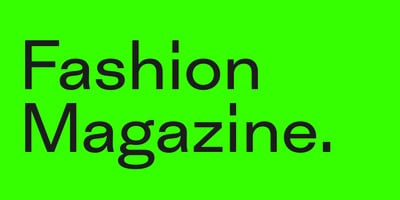
Rui Abreu
Rui Abreu first taught himself the craft of type design by making experimental geometric fonts. He then traveled a steep learning curve by continually challenging himself. Originally from Porto, Portugal, Rui draws inspiration from his early surroundings. “Porto is a very charismatic city,” he said in his Creative Character interview. “The city’s old trading activity is still visible on many storefronts, so lettering and type are part of the urban landscape. That probably did have some influence on my typographic disposition.”
After publishing his early typefaces through a foundry called Fountain, he launched his own one-man label, operating out of Lisbon, Portugal: another city boasting a rich history of ornamentation and lettering. “I certainly think I’ve been influenced by the city and its character,” he said. “Many of its aspects are difficult to translate in typographic terms, but the city’s general aesthetics, specifically the late gothic and baroque ornaments, and the definite presence of literature and books that one feels in Lisbon, all have worked as stimuli for me.”
It didn’t take long before the self-taught designer was creating highly original, beautifully drawn typefaces. Font families created under his own foundry represent sophisticated takes on popular genres: Gesta is an elegant sans-serif with a squarish silhouette; Azo Sans is a geometric sans with a humanist touch; Grafolita a stylist connected script. “There is something appealing in working with simple conventional forms. This could seem limiting in terms of artistic expression, since they come with conventions you can’t break. However, the challenge of designing a good typeface is to somehow exceed yourself and achieve something good within tight limits. Azo Sans, which is a geometric sans, is an example of such a challenge.”
Rui is a talented, versatile artist. His broad range of skills include video directing and editing, animation, 3D art, printmaking and composing. So how did it come to be that he is such an accomplished type designer? “The fact that I increasingly got more interested in type design,” he said, “and eventually started working on it full time, has to do with my tendency to build things, and above all to draw. It seems to me that type design is a good thing to focus on, since it is a microcosm of everything else.”